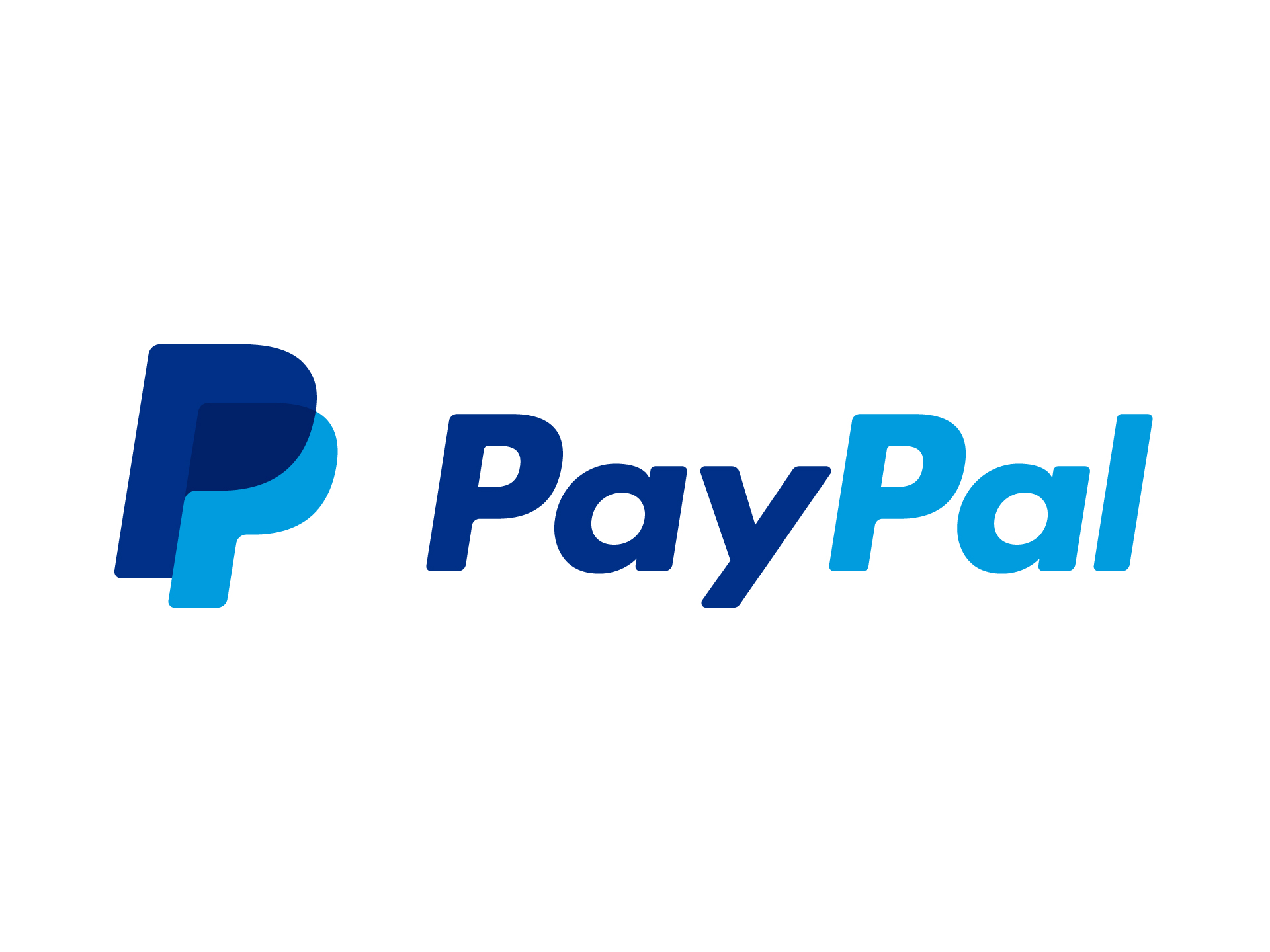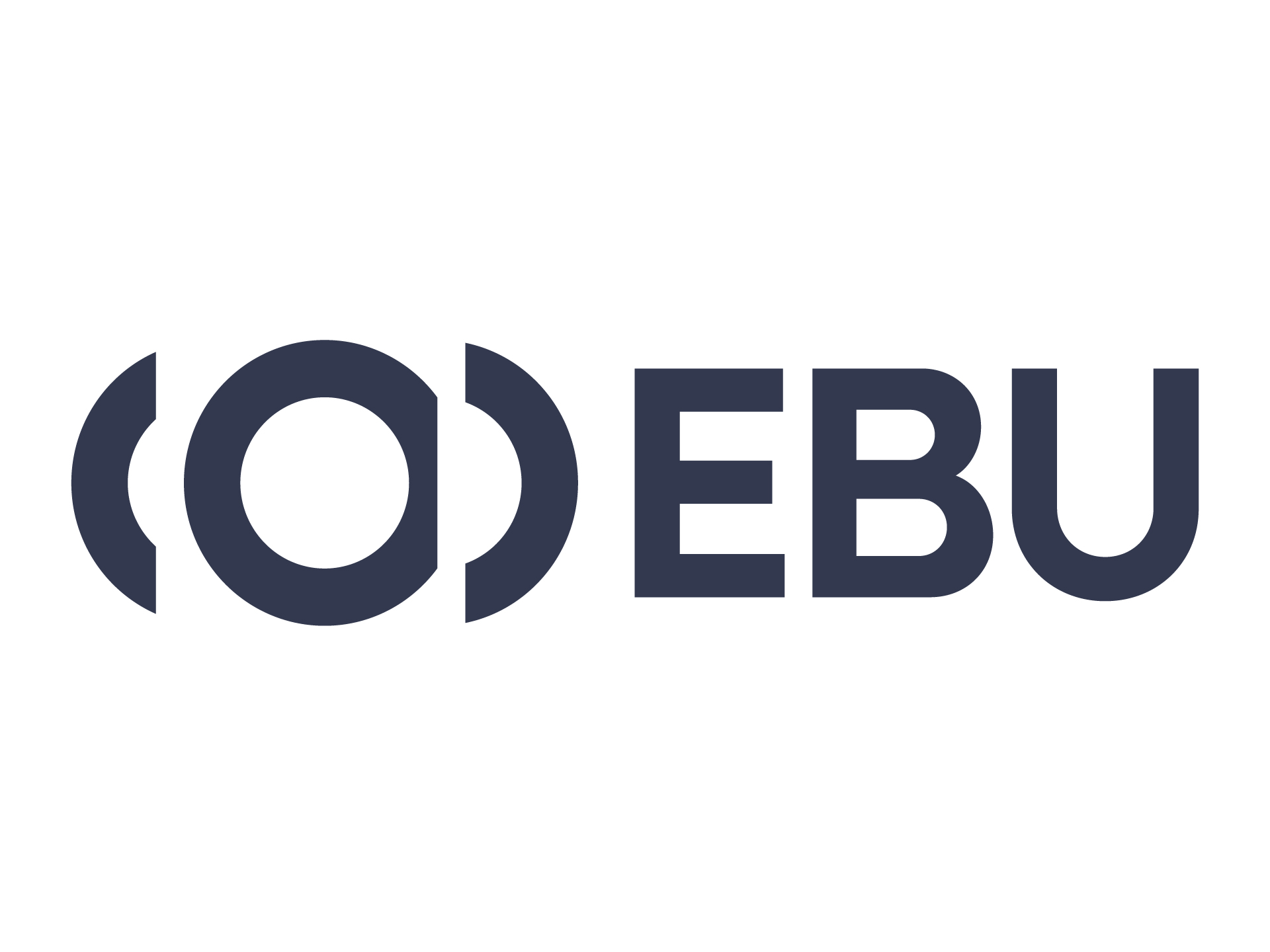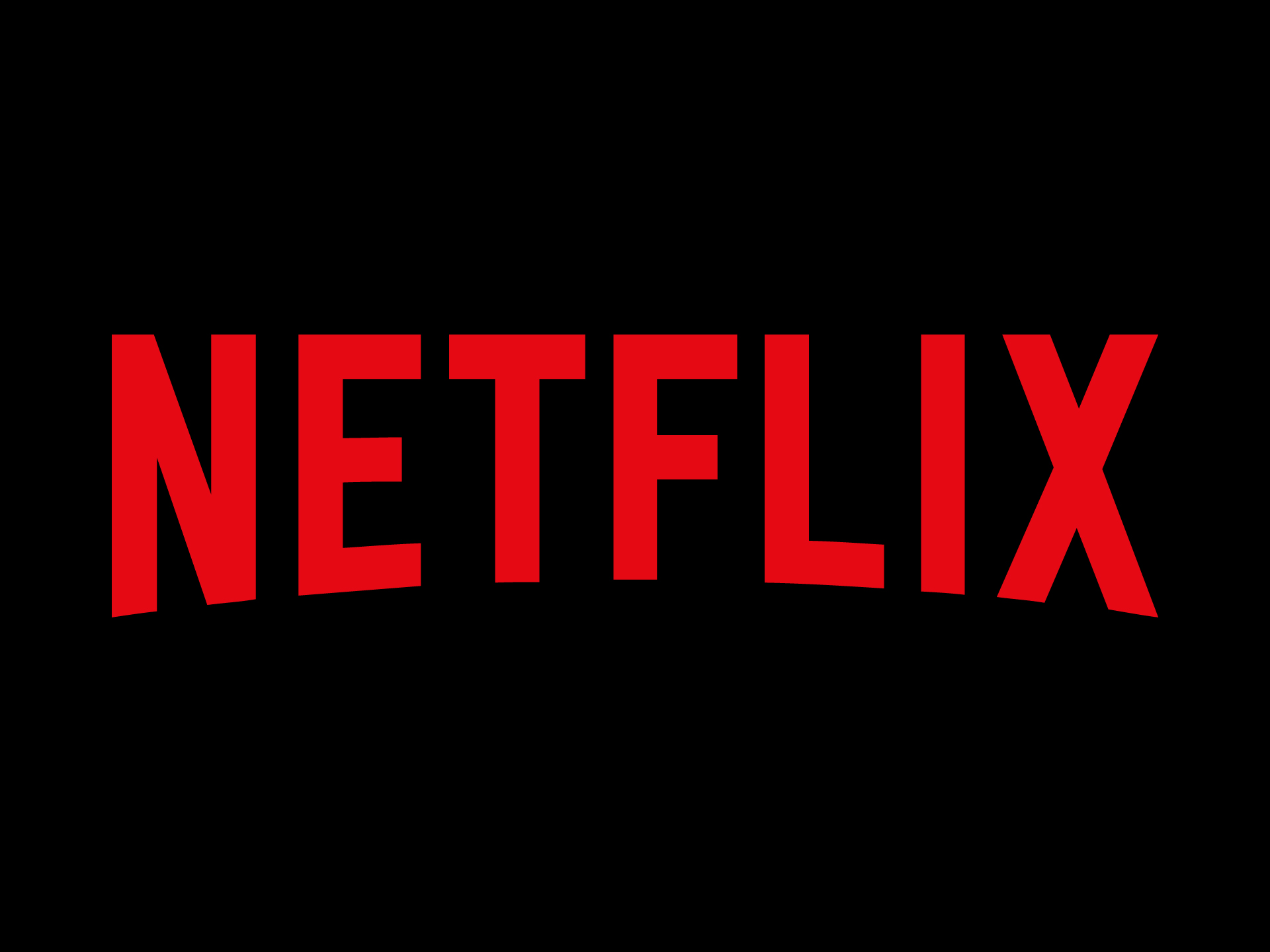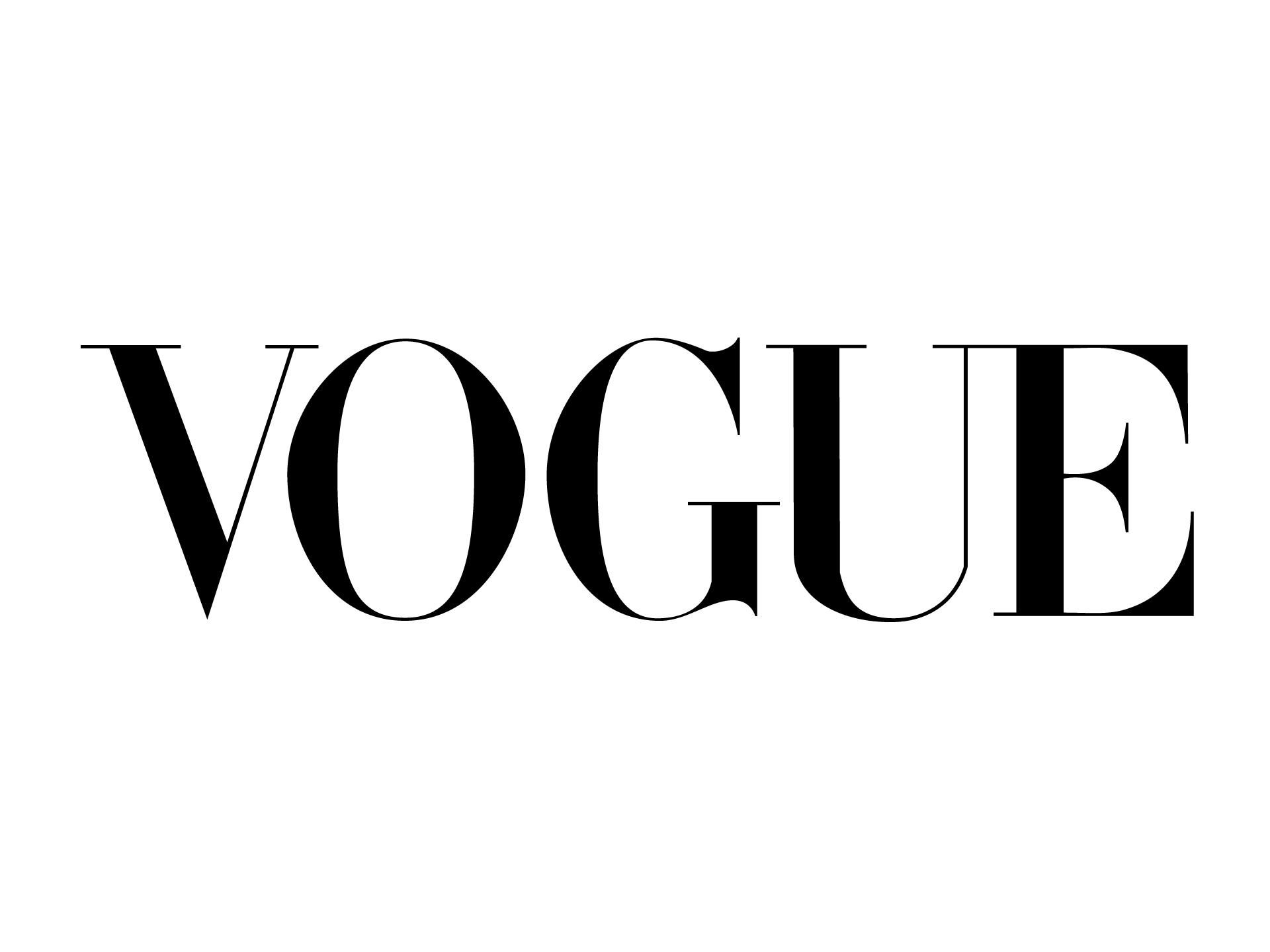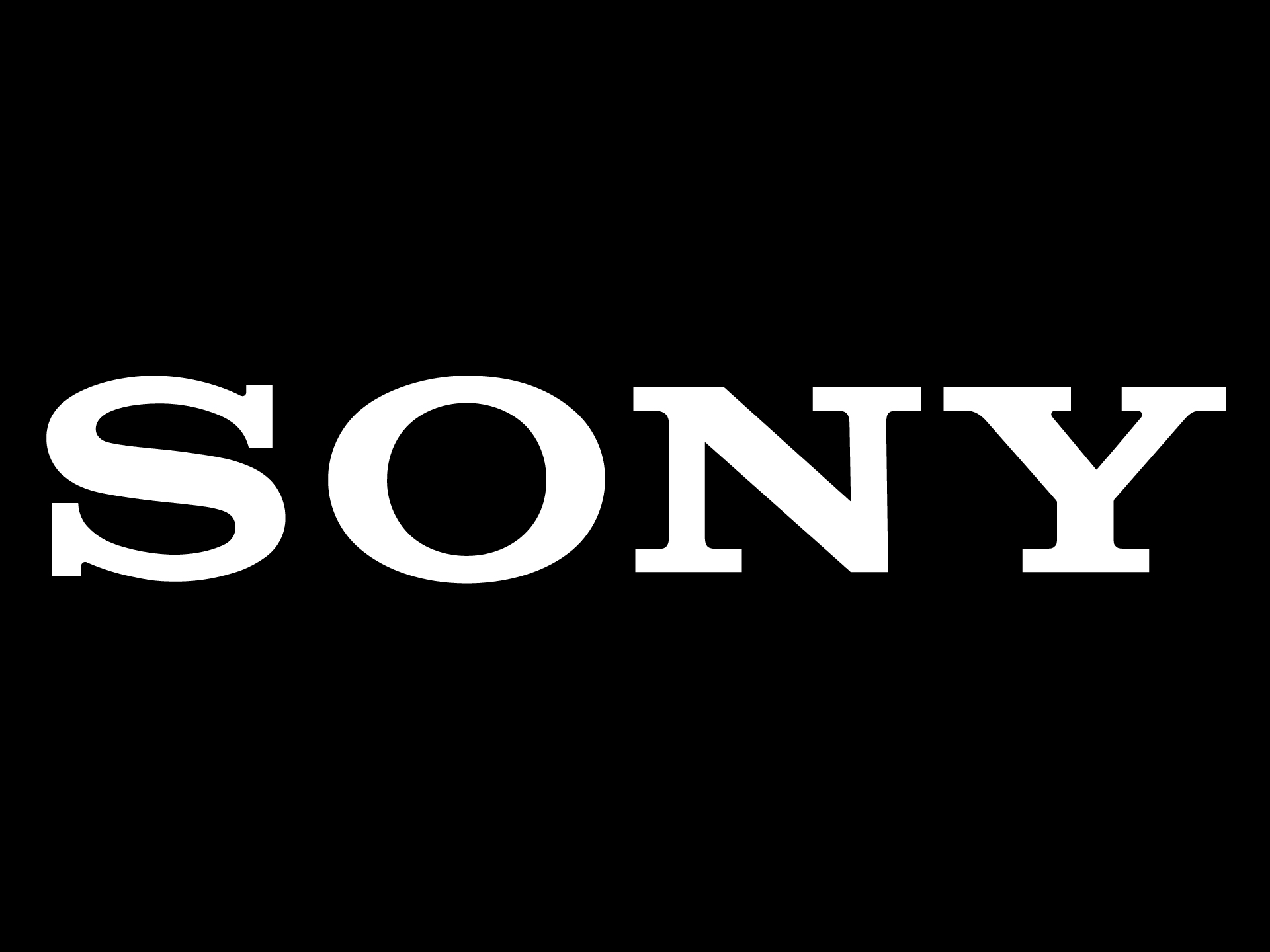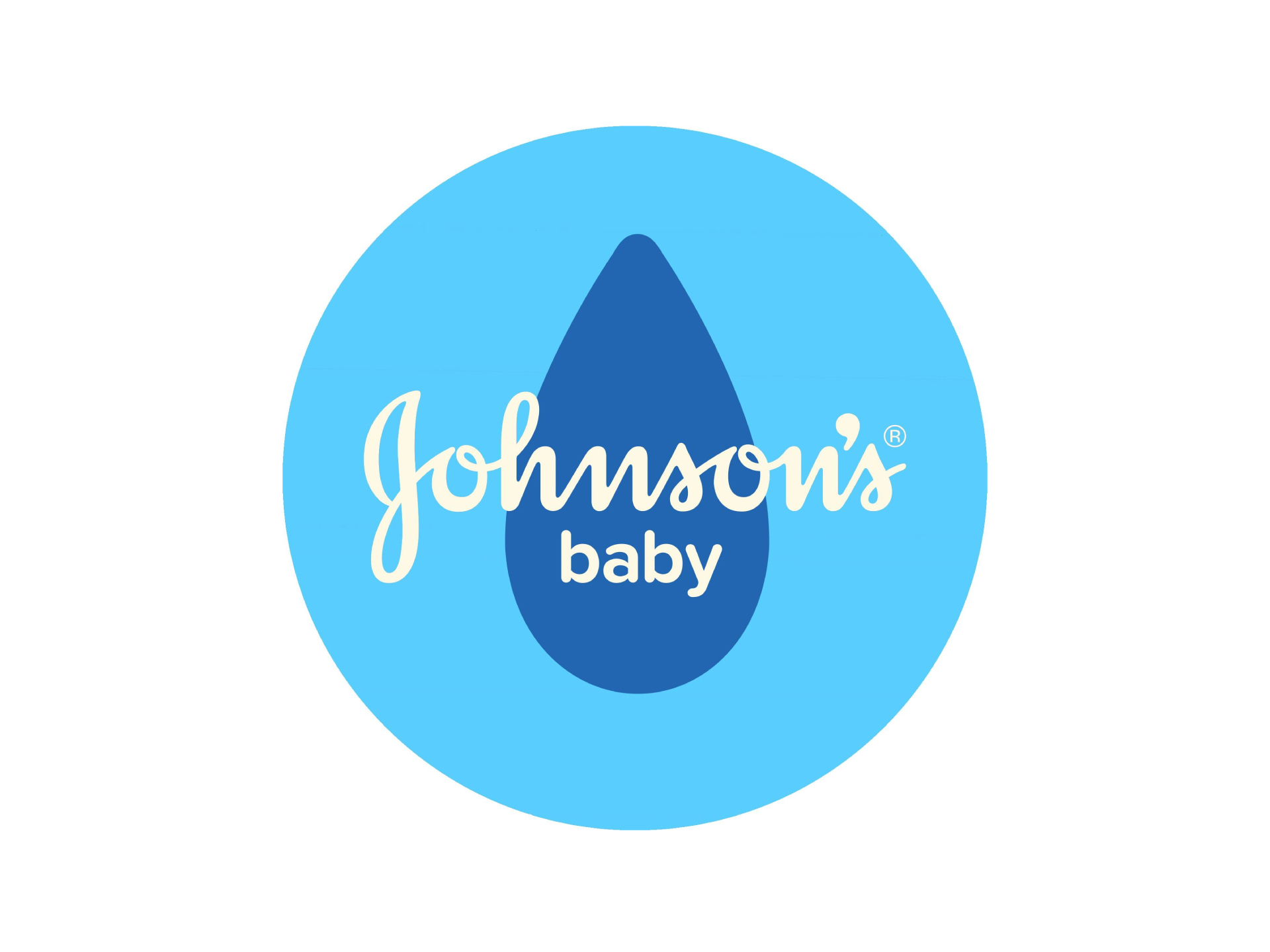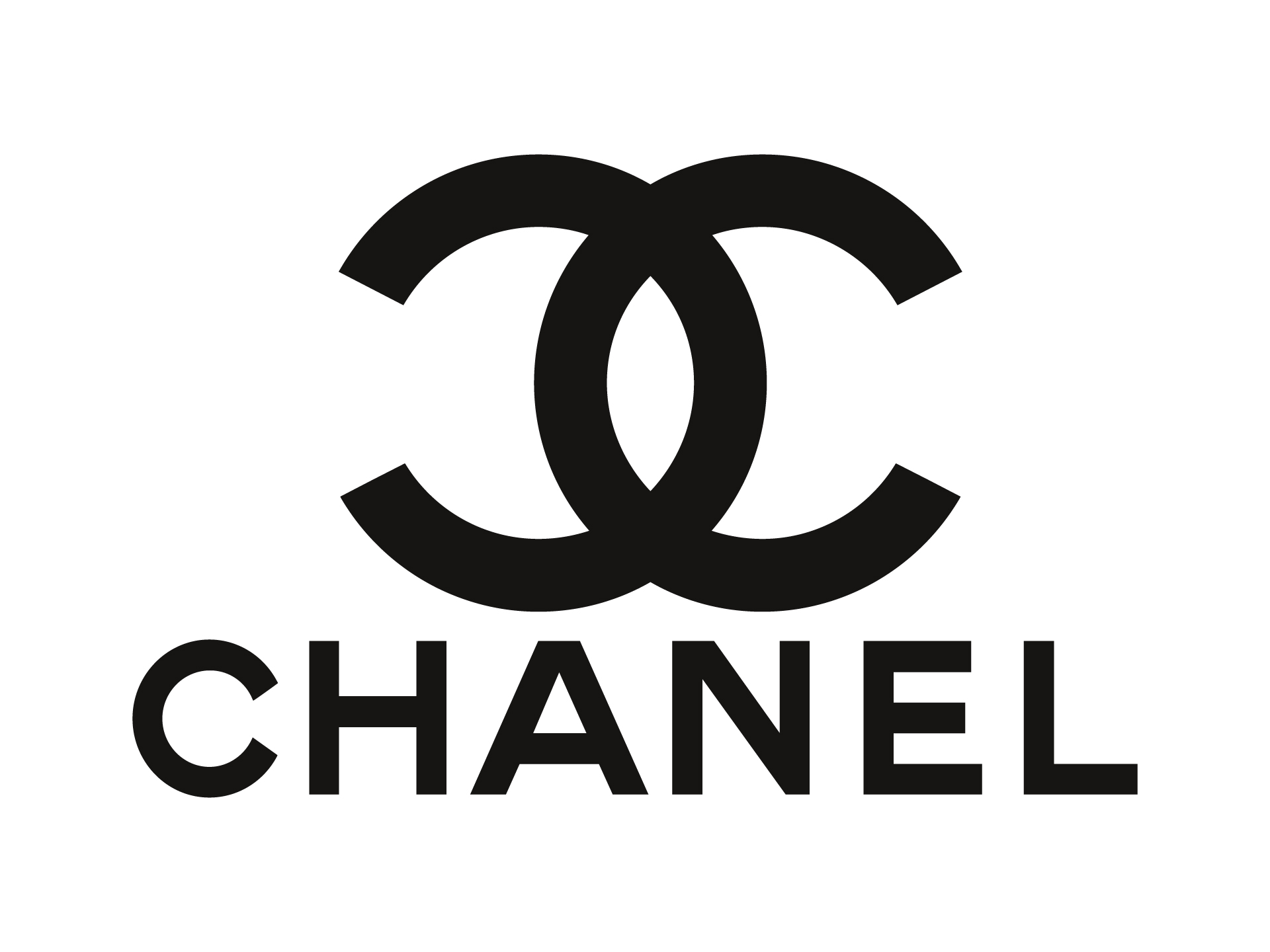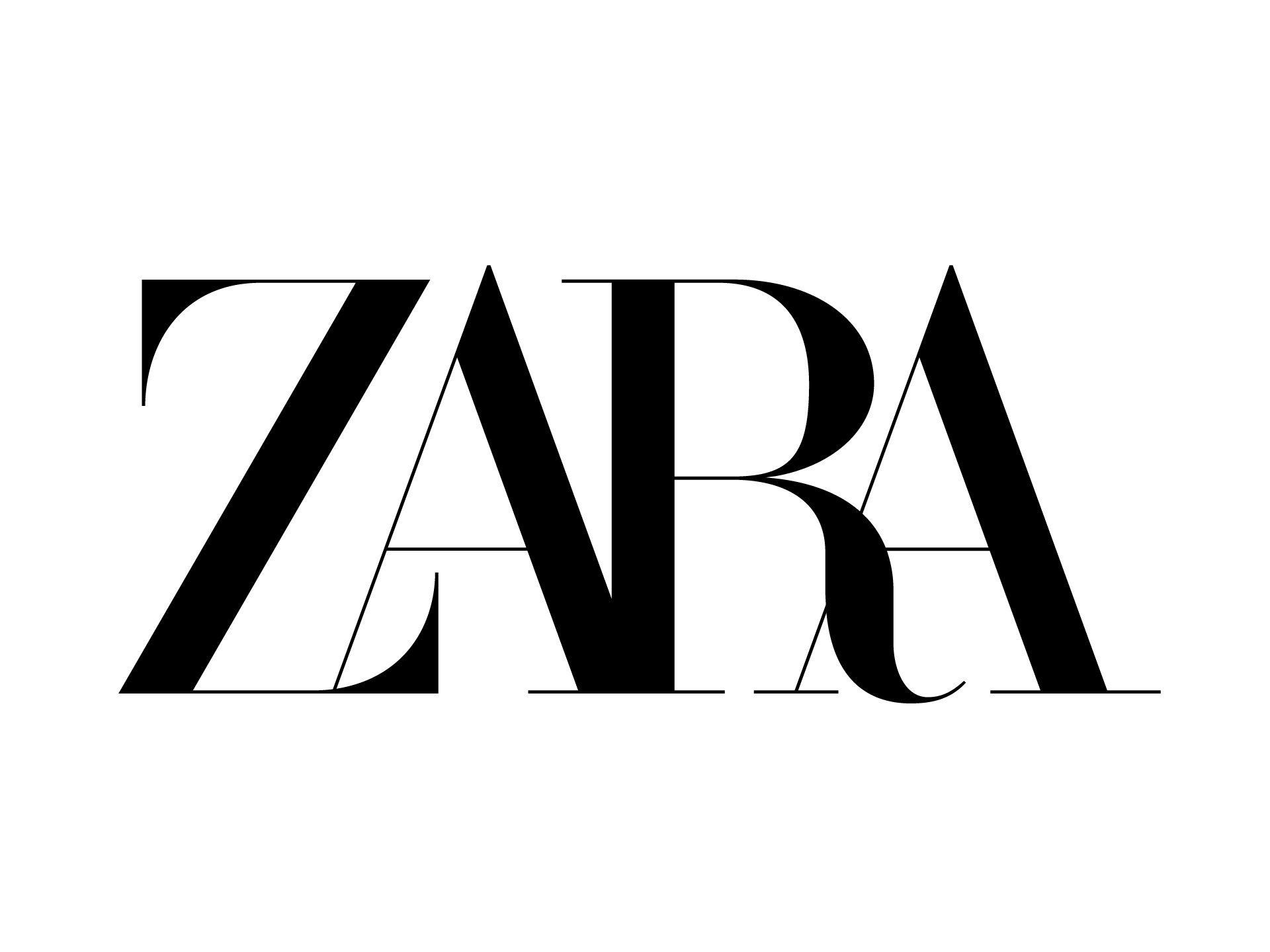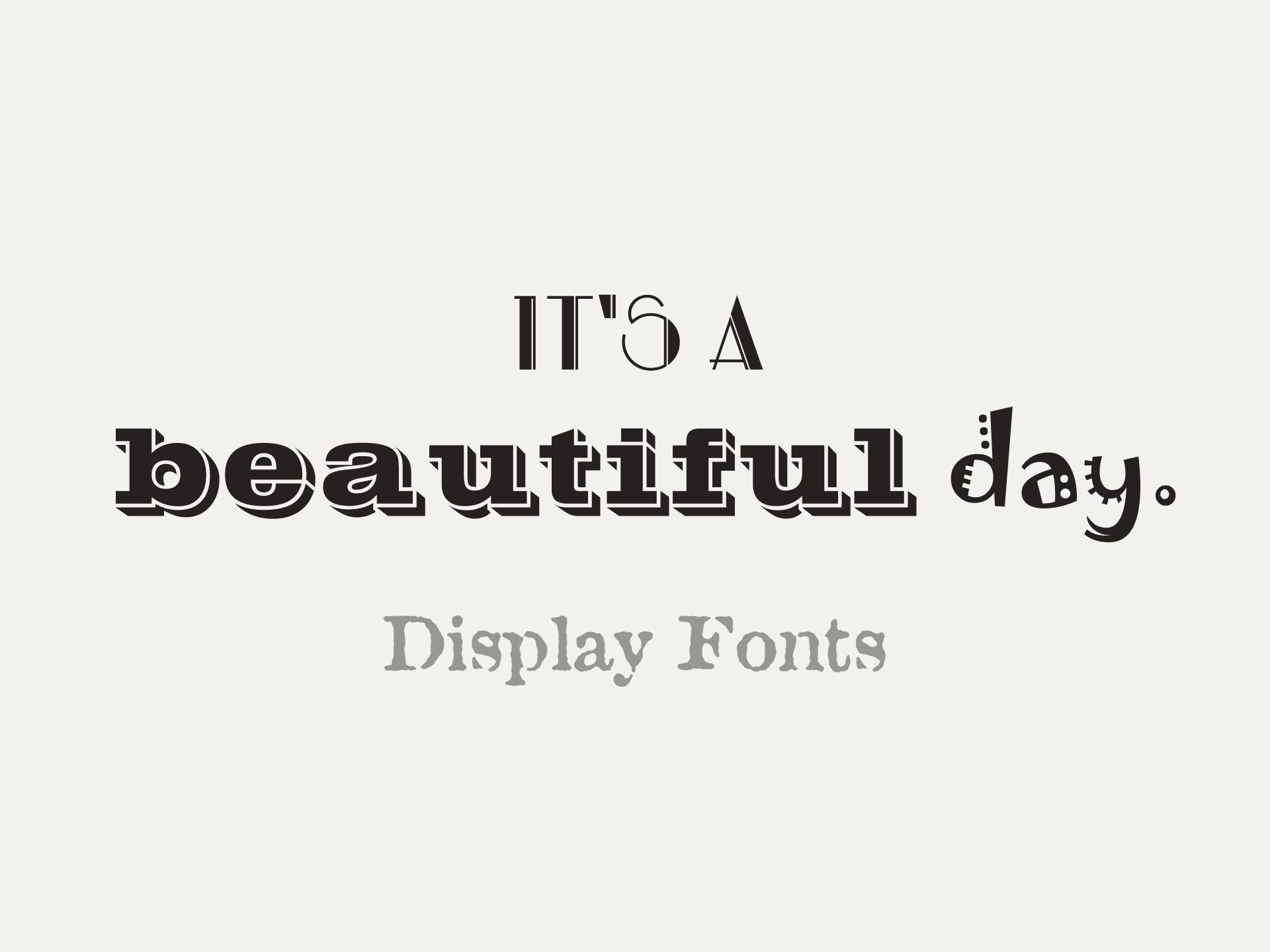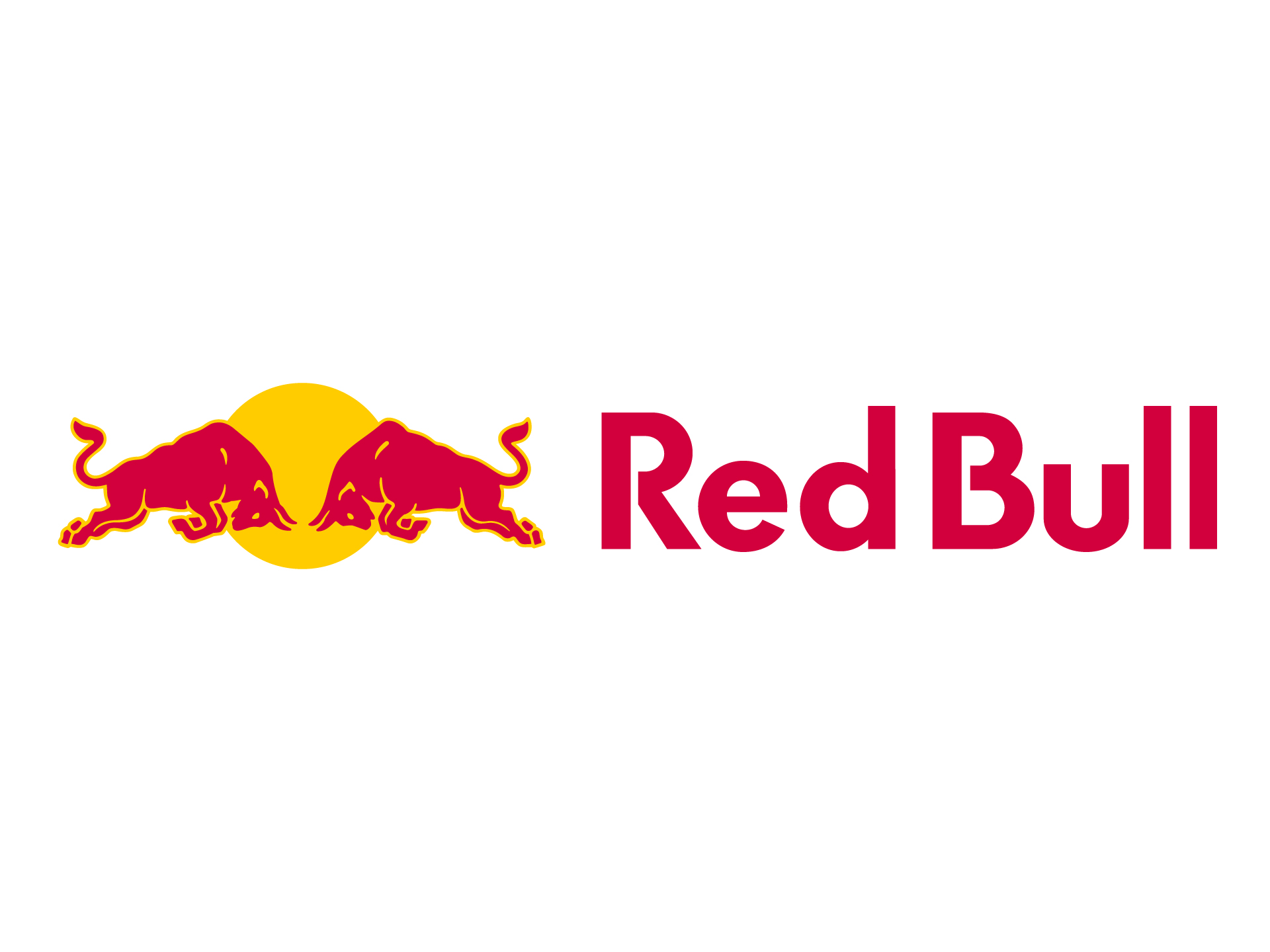
20 Logo Fonts that Help Brands Make History
In October 2010, GAP decided to update its logo. The world-renowned clothing brand went from a classic navy-blue box logo with a serif typeface to a plain, dull wordmark in Helvetica. It was a notorious move. Loyal customers lost trust, and designers criticized the shop. After a week of widespread backlash and complaints, GAP brought back its old logo.
In 2015, Google faced the same change but with a different outcome. The company transformed its iconic logo into a very simple one. It replaced its bold serif font with a custom-made plain typeface, known as Product Sans. The change was smooth and successful. Almost no one noticed the transition.
GAP failed because they’d chosen a popular font that didn’t complete their mission. Fonts are letters that put logos in the spotlight and tell the brand story.
Let’s discover the best fonts for logos that have brought many businesses international fame.
Key Takeaways
• There is no single best font for logos. All logo fonts are well-designed and create effective wordmarks, so businesses should choose one that matches their brand identity.
• A good logo font should be unique, legible at all sizes, and approved for commercial use.
• Business logos can use two font combinations to add contrast, boldness, and clarity.
Types of Fonts for Logos
Choosing the right font for your logo isn’t about creating something that looks good.
The right font shapes the brand image, voice, and style. It speaks to shoppers, transfers emotions, and builds trust between the brand and the consumer.
There are four font types for logos, and they all present excellent scripts for millions of brands, companies, and institutions.
Serif Fonts
Serif fonts have little lines or strokes at the top, bottom, and edges of the letters. There are many classifications of serif fonts, and each differs from the others in its thickness, curves, and angles.
Serif fonts are an excellent choice for logos. They exude luxury, tradition, and professionalism. Times New Roman is a popular serif font.
Sans-Serif Fonts
Sans-serif letterforms, as opposed to serif fonts, lack decorative strokes at the edges. They work effectively in logos thanks to their clean, modern look.
Sans-serif fonts are legible on digital screens and are suitable for websites. Helvetica and Futura, which have shaped the logos of world-renowned companies, fall into this category.
Script Fonts
Script fonts have been created to mimic handwriting. They give a historical, personalized, and creative touch to logos.
Script fonts create one-off wordmarks with a nostalgic and personal feel. Spencerian script is a prominent font that has shaped the timeless logo of Coca-Cola.
Display Fonts
Display fonts, also known as decorative fonts, are unique and attention-grabbing. They lack the structure of other typefaces.
Display fonts might be geometric, handwritten, spray-painted, or blended with decorative icons. They add colors and flavor to any logo, making them one-of-a-kind and without peer.
Best Fonts for Logo Design
There are dozens of good logo fonts, but only one can tell your brand story and make your voice reachable. Here are the best typefaces that have created the historic logos and wordmarks of the most prominent businesses worldwide:
1. Helvetica
Helvetica is the most famous font, used by major brands worldwide. It’s clean, professional, plain, and easy to read in almost all sizes. Though created in 1957, Helvetica is still up to date. The typeface provides logos a modern and minimal touch.
It’s best for large corporations, logistics, electronics, fashion brands, and governmental institutions. American Apparel, Panasonic, BMW, Lufthansa, 3M, Jeep, Hitachi, LG, and other giants use Helvetica in their logos and wordmarks.
helvetica-logo-font
1. Futura
Futura is an old sans-serif font, created in 1927. However, it’s still trendy. The typeface looks modern, neat, and minimalist. Many fashion brands, tech and innovation-based companies, and architecture firms use the font in their logos.
What are the best fonts for construction logos?
Construction companies use strong, bold, and clear fonts, like Bebas Neue and Montserrat Bold.
What are the cleanest fonts to use for logo design?
Clean fonts are legible on screens and posters. They are Helvetica, Futura, Avenir, Poppins, and other similar scripts.